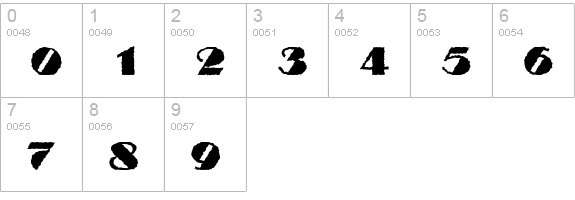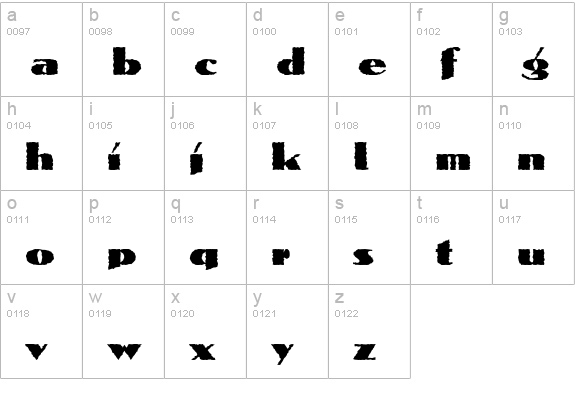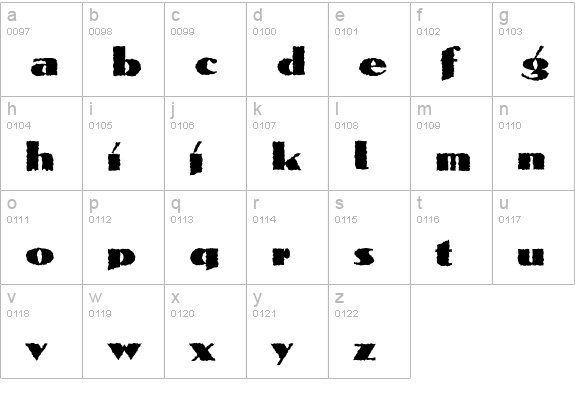
Grunge Domain Normal is the standard, neutral variant in the Grunge typeface family \xE2\x80\x94 well suited to general body text, paragraphs, and standard typographic work.
Introducing Grunge Domain Normal font, a gritty and edgy typeface perfect for adding a touch of rebellious flair to your designs. This font features a bold and rough appearance, with a distressed texture that exudes a raw and industrial vibe. The uneven lines and jagged edges give Grunge Domain Normal a unique and unconventional look that is perfect for projects seeking a grunge-inspired aesthetic. What sets Grunge Domain Normal font apart is not only its striking appearance, but also its versatility. Whether you're working on a poster, album cover, or branding project, this font will make a bold statement and add a touch of urban sophistication to your designs. Best of all, Grunge Domain Normal font is completely free! You can download it at FontsMarket.com and start using it in your projects right away. Don't miss out on this opportunity to add a touch of grunge to your designs with this one-of-a-kind font.